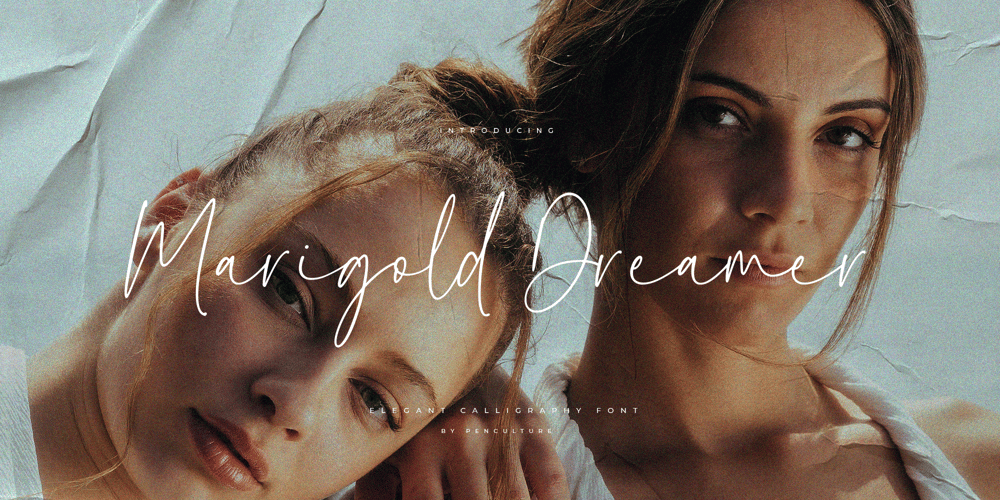
Marigold Dreamer Font Family was designed by Revo Farsiky and published by Pen Culture. Marigold Dreamer contains 1 styles and family package options. Introducing Marigold Dreamer, a captivating handwritten script font created with love and care using traditional techniques. Every letter of this font was meticulously handcrafted, resulting in a truly authentic and unique typeface.Marigold Dreamer exudes a whimsical charm that adds a touch of warmth and personality to any project. Its graceful strokes and intricate details capture the essence of handwritten elegance. The font boasts exquisite ligatures and delightful tails, enhancing the fluidity and natural flow of your text.I really hope you enjoy it – please do let me know what you think, comments & likes are always hugely welcomed and appreciated. More importantly, please don’t hesitate to drop me a message if you have any issues or queries.Thank you